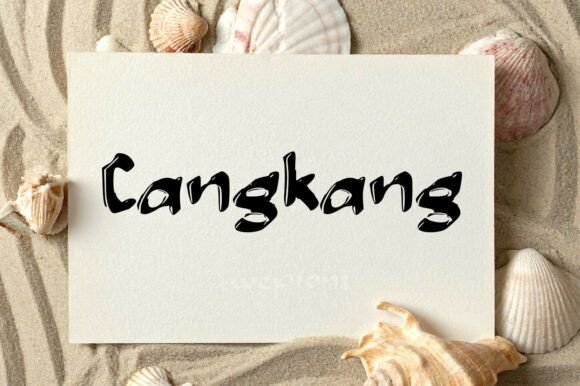
Discover the Charm of Cangkang: A Handcrafted Font for Creative Ventures
I’ll never forget the design project that led me to Cangkang. I was working on a personalized branding initiative for a small business, and I was struggling to find the perfect font. The client wanted something that felt warm, inviting, and authentically handmade. After hours of scouring font libraries and marketplaces, I stumbled upon Cangkang – a dynamically brushed font that seemed to capture the essence of what I was looking for.
As I began to work with Cangkang, I was immediately drawn to its whimsical imperfections and organic rhythm. The font exudes a sense of unfiltered imagination, delivering an authentically handwritten experience that’s perfect for designs that require a personal touch.
A Personal Review of Cangkang
- ✨ **Warm and inviting aesthetic**: Cangkang’s handcrafted charisma makes it perfect for designs that require a personal touch.
- ✅ **Excellent readability**: Despite its organic feel, Cangkang remains surprisingly lucid and easy to read, even at smaller font sizes.
- 💫 **Artistic flexibility**: The font’s dynamically brushed style lends itself beautifully to creative experimentation and artistic expression.
While Cangkang is an exceptional font, it’s not without its quirks. For example:
- ⚠️ **Limited suitability for formal designs**: Cangkang’s informal, handcrafted nature makes it less suitable for formal or corporate designs that require a more polished aesthetic.
- 🤔 **Occasional inconsistencies**: As with any handcrafted font, there may be occasional inconsistencies in letter spacing or kerning – but these can often add to the font’s charm.
The Story Behind Cangkang
Cangkang was designed by a young typographer who wanted to capture the essence of handcrafted art in digital form. Inspired by traditional brush calligraphy, the designer aimed to create a font that felt both organic and elegant. The result is a font that beautifully balances artistic expression with readability and versatility.
Q: What makes Cangkang unique?
A: Cangkang’s unique blend of handcrafted charm and excellent readability makes it an exceptional font for designs that require a personal touch.